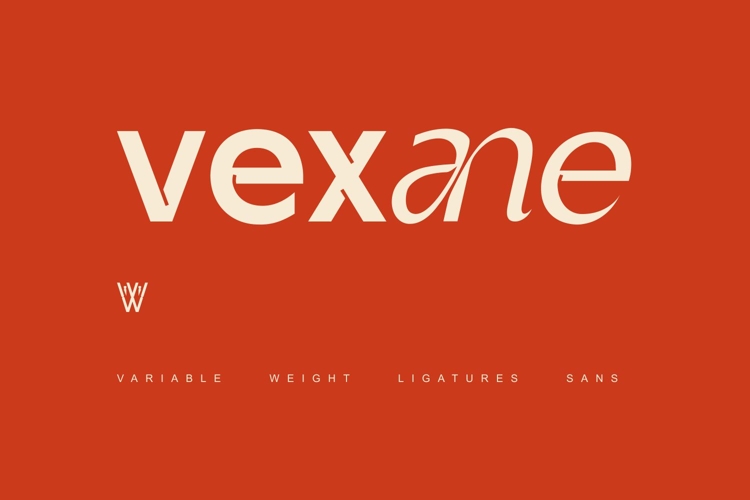
Vexane is a contemporary grotesk sans font crafted for designers who want instant brand presence without complex customization.
With its distinctive ligatures and balanced proportions, Vexane allows you to create logo-ready wordmarks simply by typing. No extra glyph hunting, no over-styling — just clean, confident typography that works.
Designed for modern branding needs, Vexane performs beautifully across digital interfaces, editorial layouts, startup identities, and product visuals.
From typing once to branding — Vexane helps your words stand out instantly.